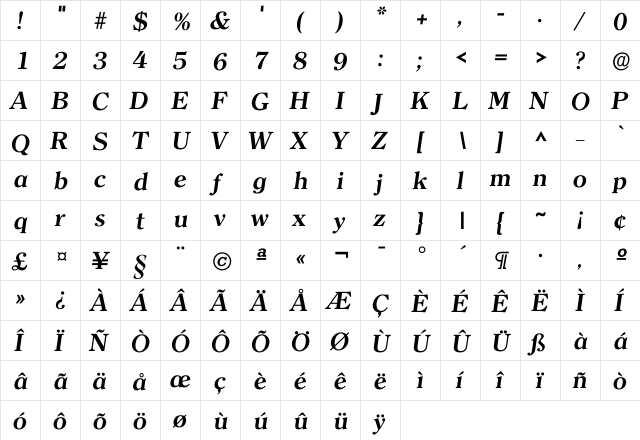
Iclerface DemiBold
Design Context for Iclerface Typeface
Iclerface takes a measured approach to typography — its balanced proportions and neutral character make it a reliable workhorse for both digital and print work. The heavy weight commands attention and anchors typographic hierarchies.
Pro Tip: Pair Iclerface with a font of contrasting weight or personality to build a more expressive typographic hierarchy.